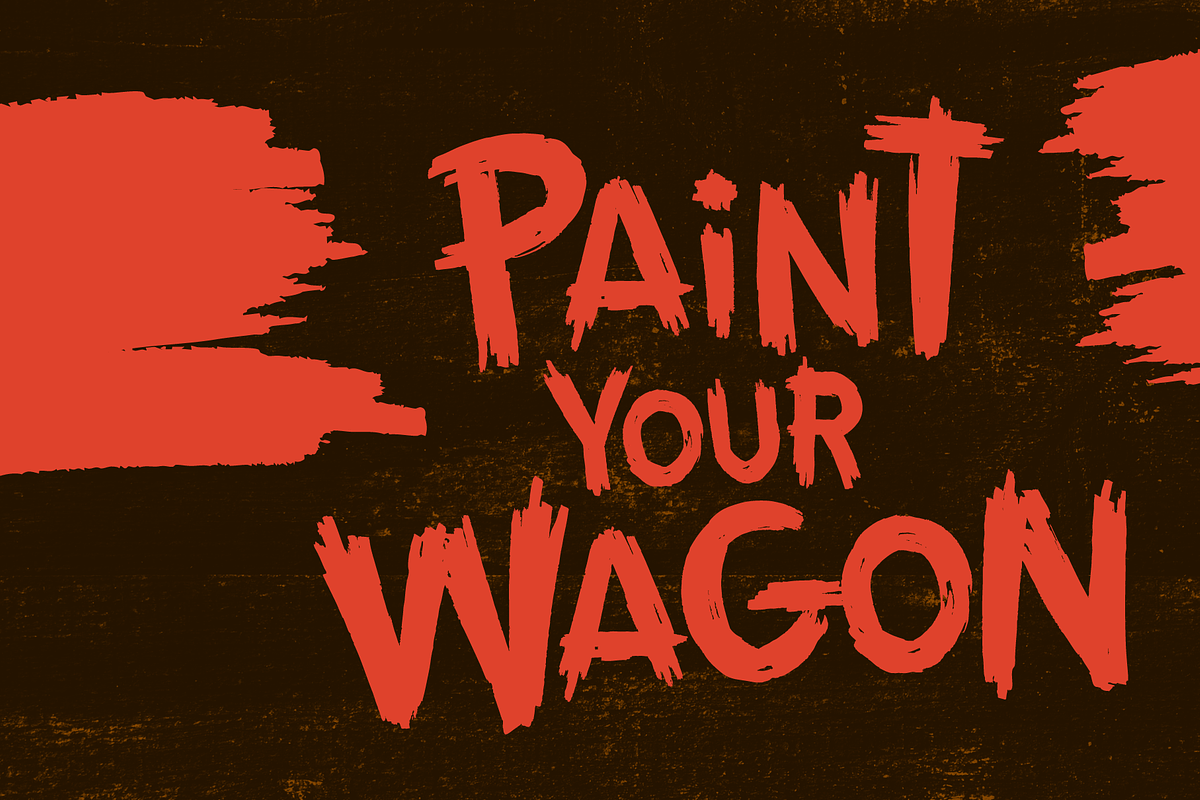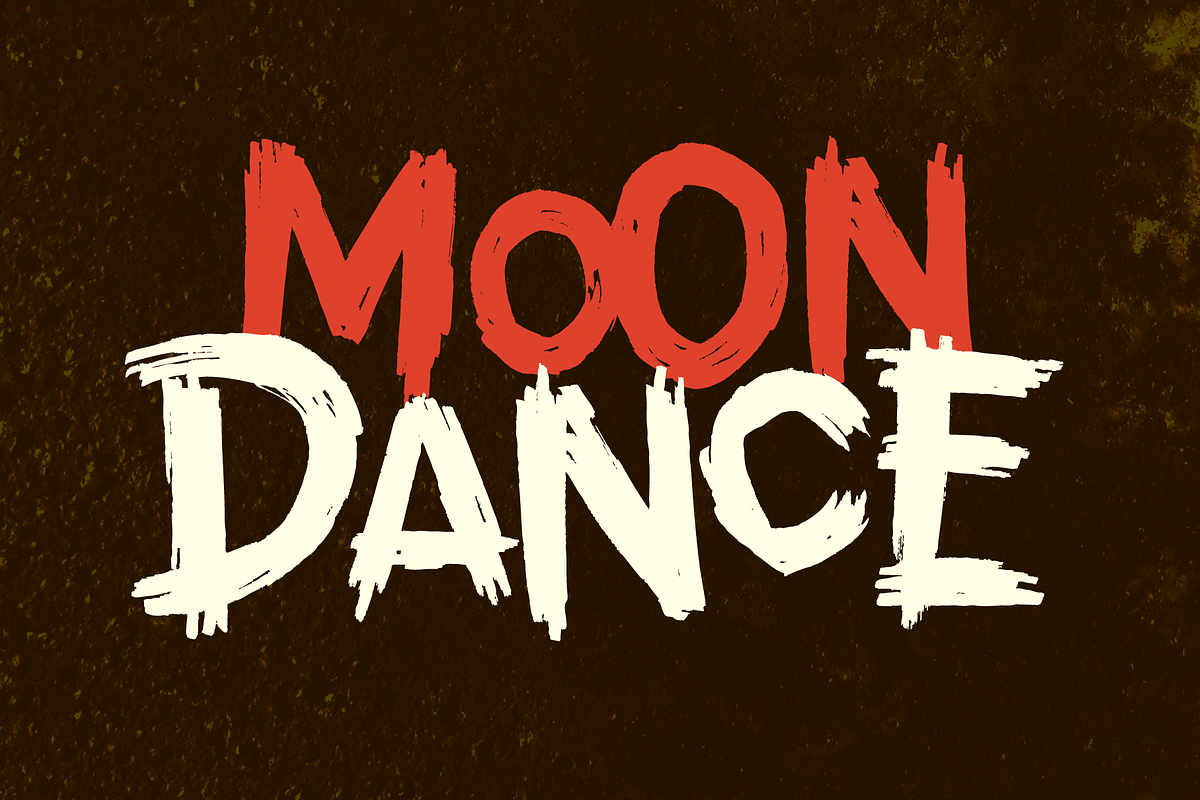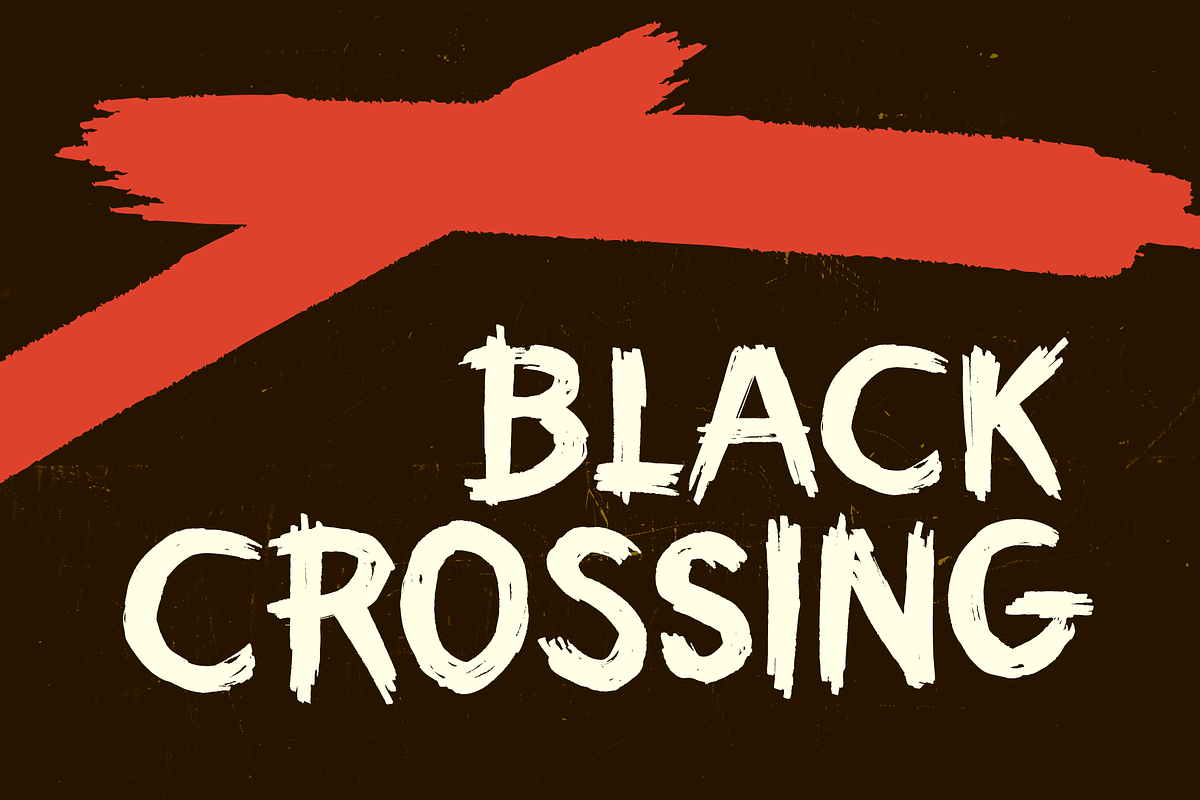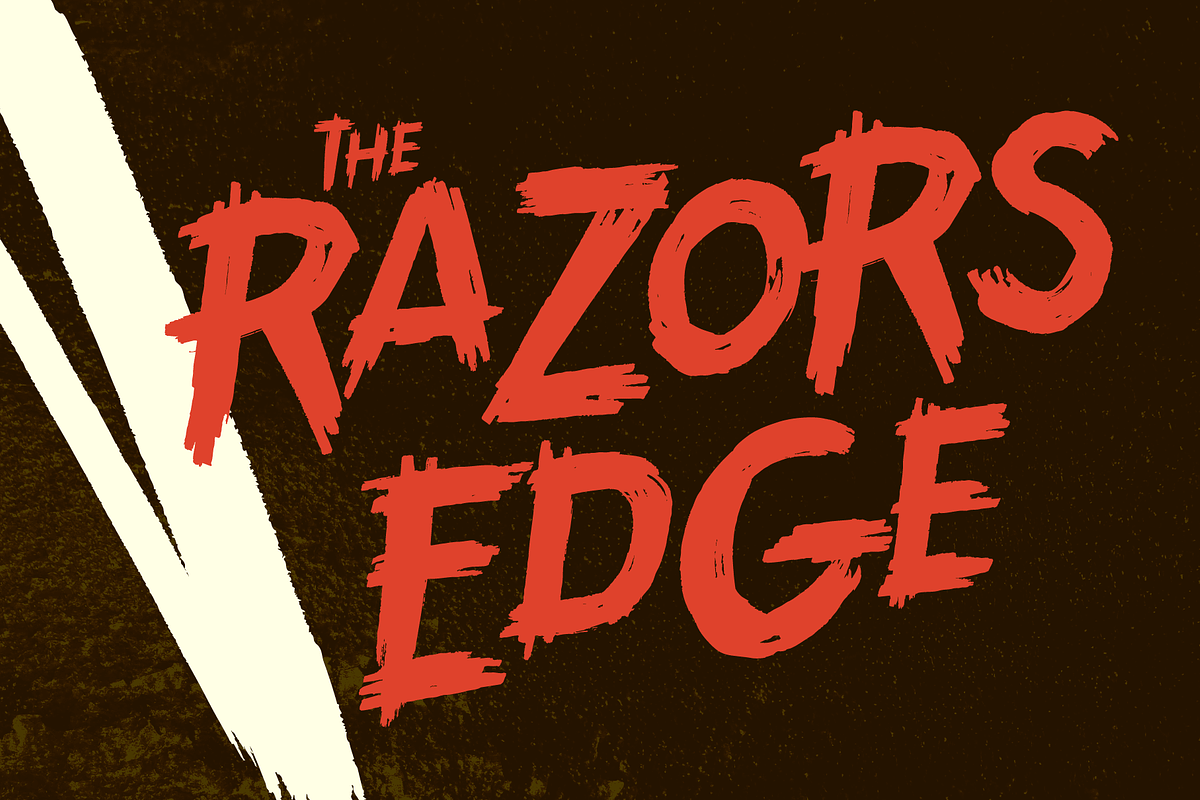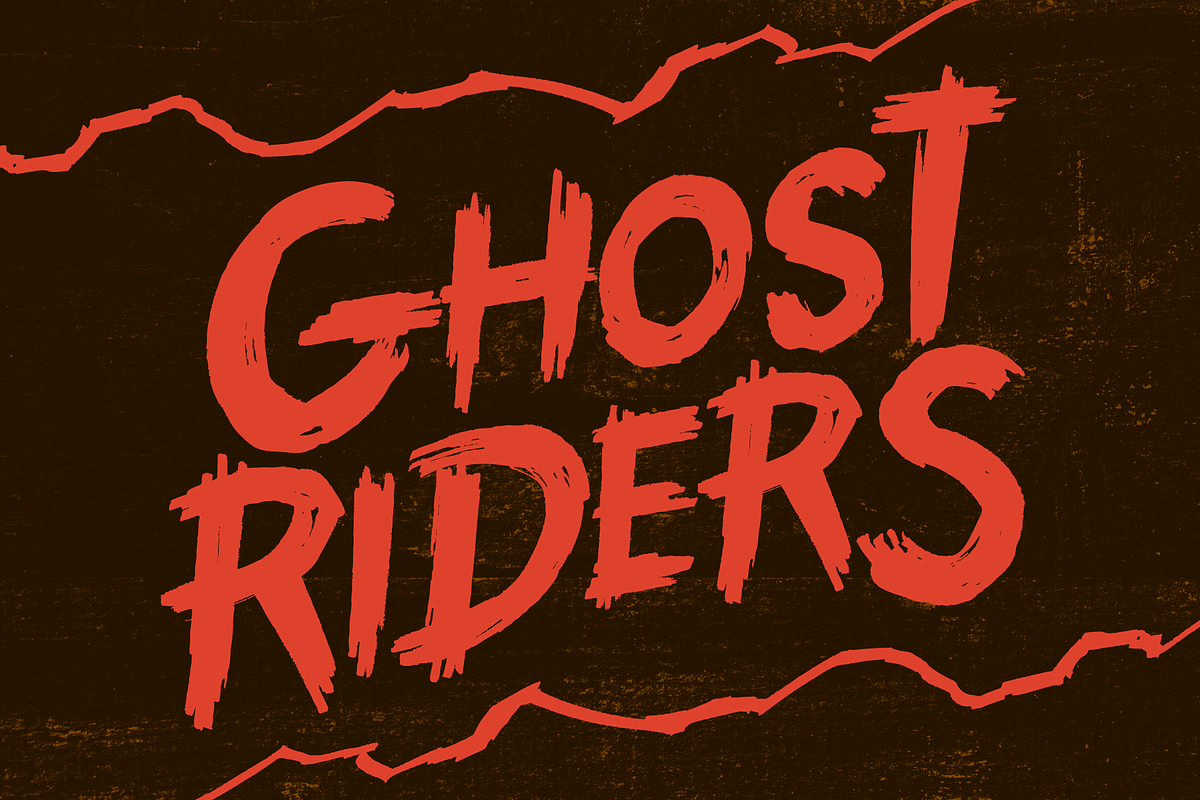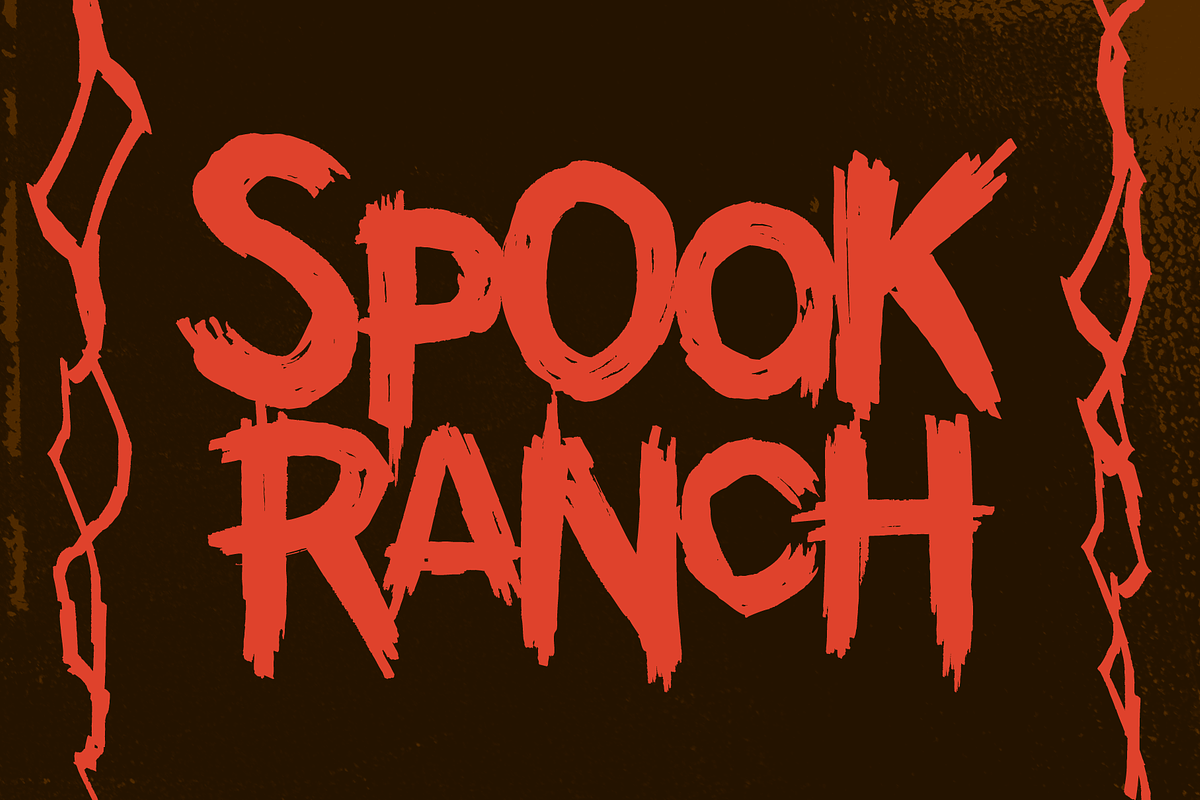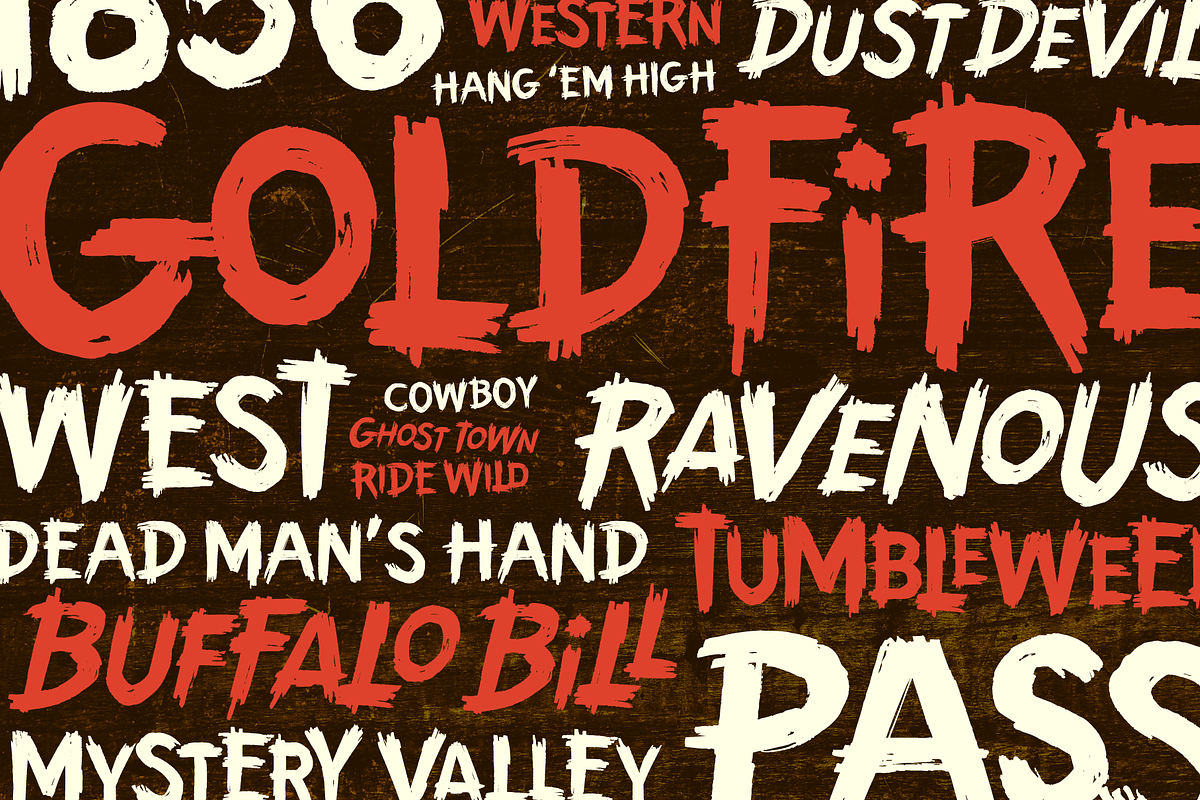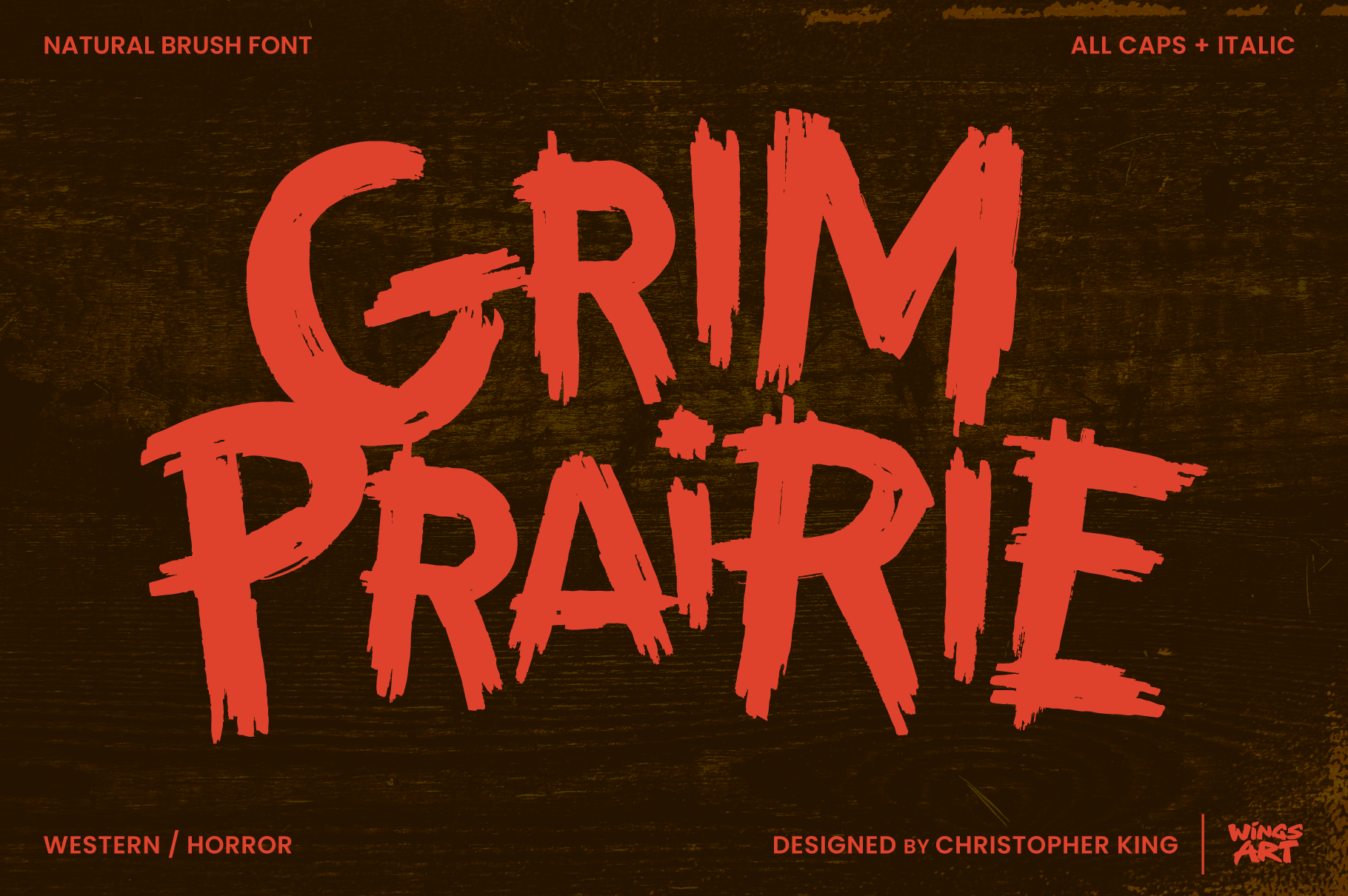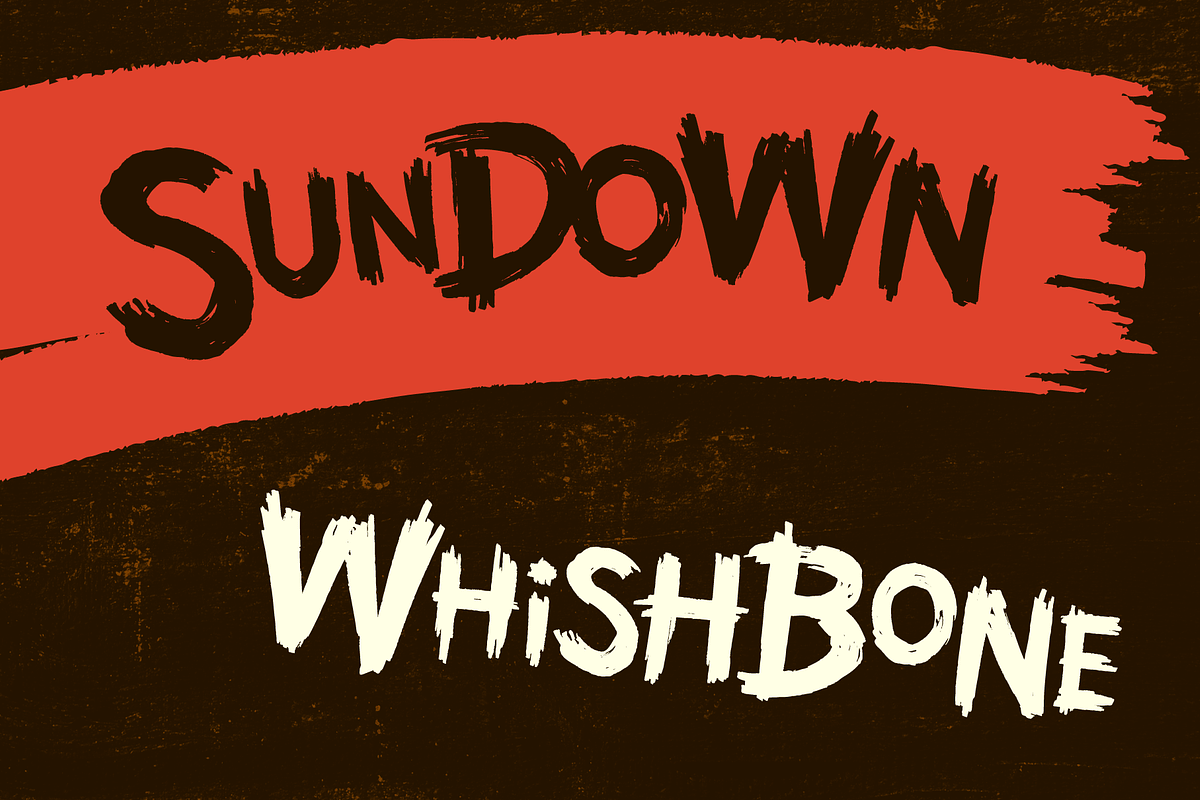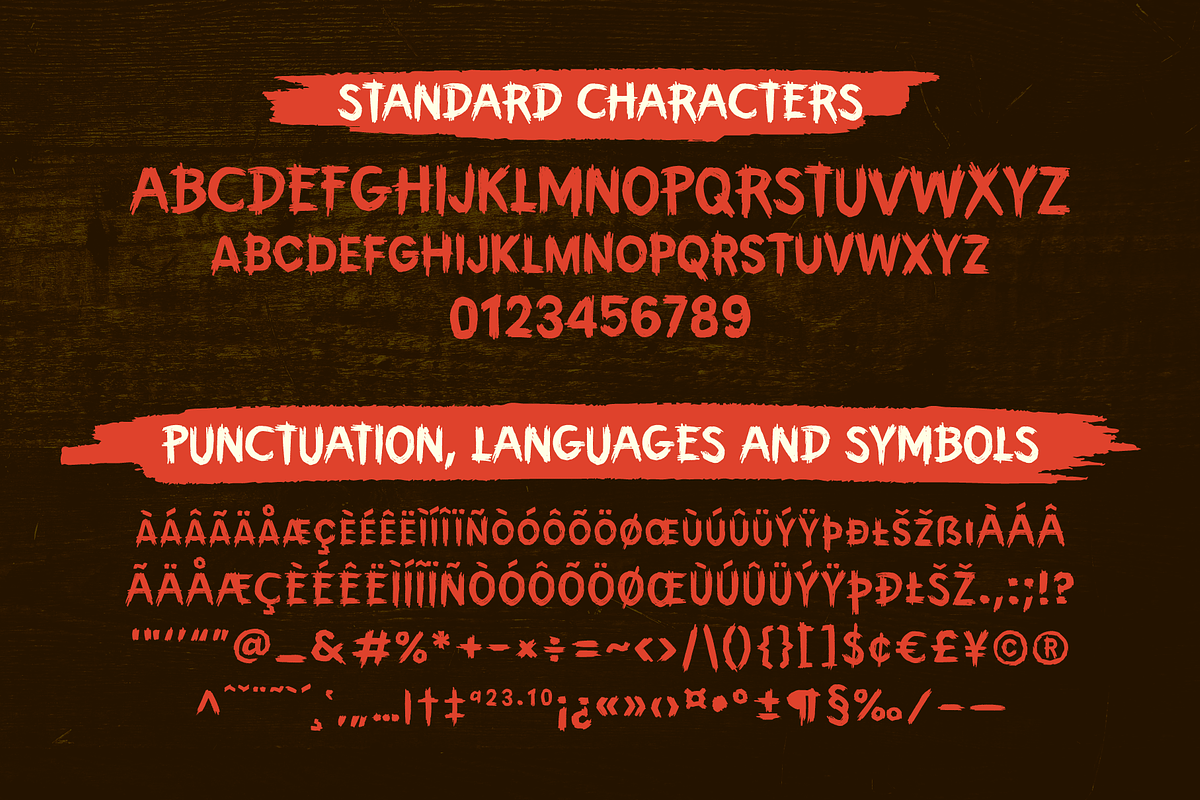
Grim Prairie: Western Horror Font
Grim Prairie: A Hand-Drawn Western Horror Brush Font Grim Prairie combines the retro influences of classic Western movie posters with the gothic flair of pre-Code horror comics, resulting in a hand-drawn brush font that looks at home painted on the side of a wagon or headlining a campfire tale of terror! It's an all-caps design that adheres to formal lettering standards, while executed with a chisel-tipped brush for a textured look that maintains readability - perfect for impactful title designs and signage. The Grim Prairie font includes all-caps uppercase and unique lowercase characters, along with numerals, punctuation, symbols, and language support. It also comes with an italic alternative that offers a more contemporary, video-game look.